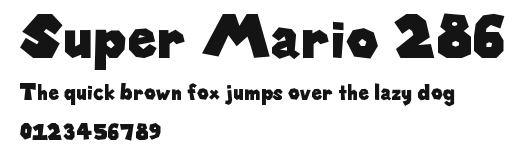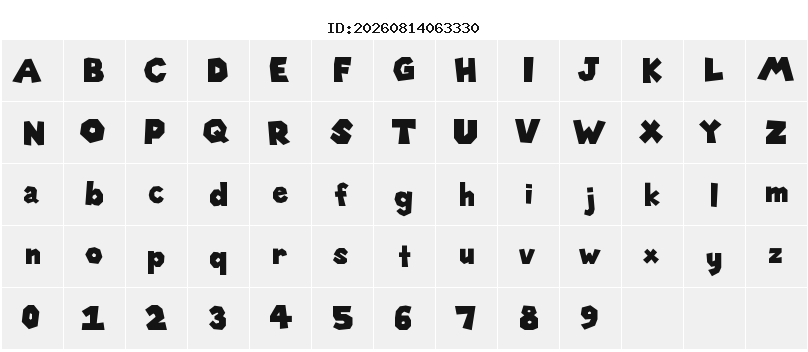
Super Mario 286 Preview
• Font Name: Super Mario 286
• Full Font Name: Super Mario 286
• Version: Version 1.00 May 1, 2015, initial release
About Super Mario 286.ttf
Super Mario 286.ttf is a modern, elegant sans-serif font designed for ultimate readability and visual harmony. Perfect for branding, headlines, web design, and print materials.